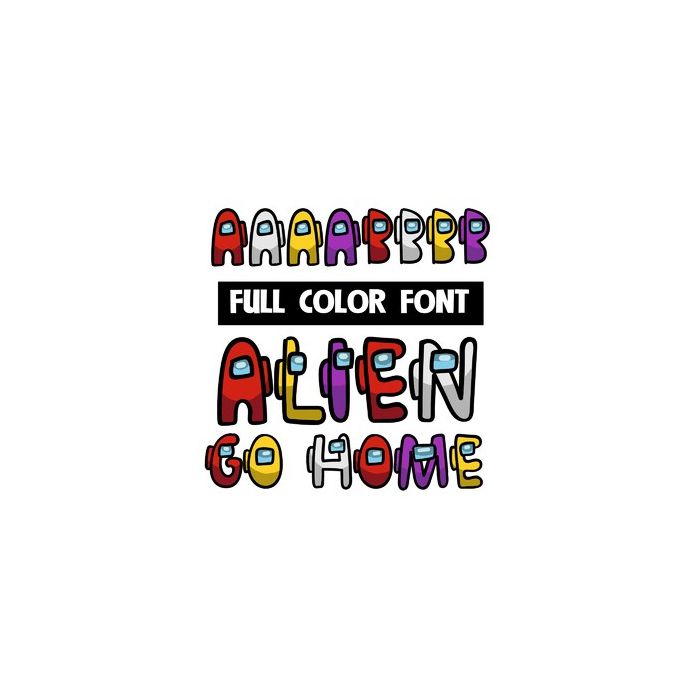
This cute full-color font features little space-suited aliens in a variety of coloring. Red and yellow are the upper and lowercases. Purple and gray are available with the alt case that you can access through Silhouette's glyph map.